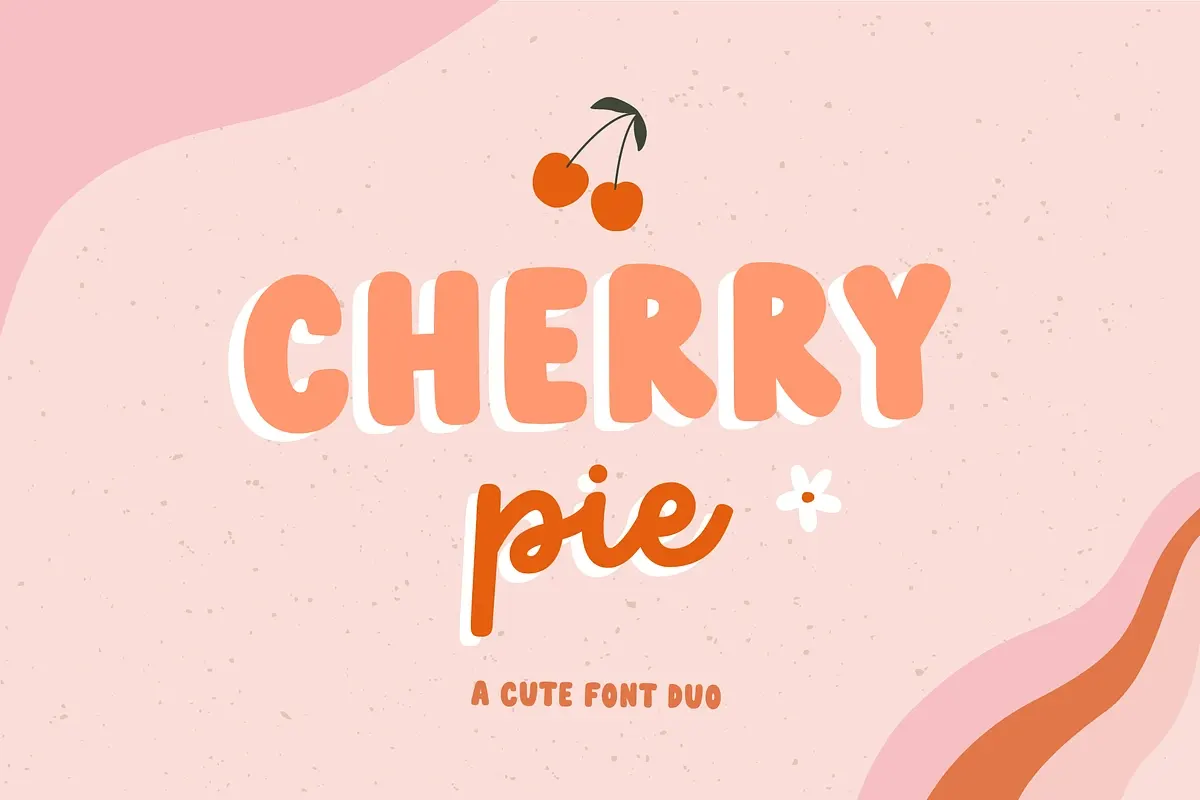
Cherry Pie | Font Duo Free Download is a delightful and versatile font pair that combines a playful, hand-lettered script with a clean, modern sans-serif. This dynamic duo is perfect for a wide range of creative projects, including branding, invitations, social media graphics, logos, and more.
The script font brings a fun, whimsical touch, while the sans-serif offers a sleek and easy-to-read contrast, making it ideal for projects that need both personality and clarity. Whether you're designing for a trendy brand, creating a joyful event invitation, or developing an engaging social media post, Cherry Pie gives you the flexibility to create something unique and eye-catching.